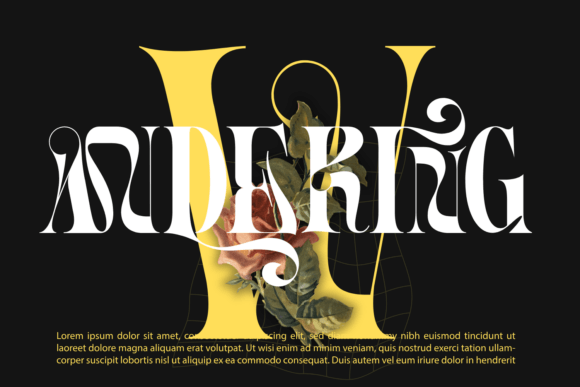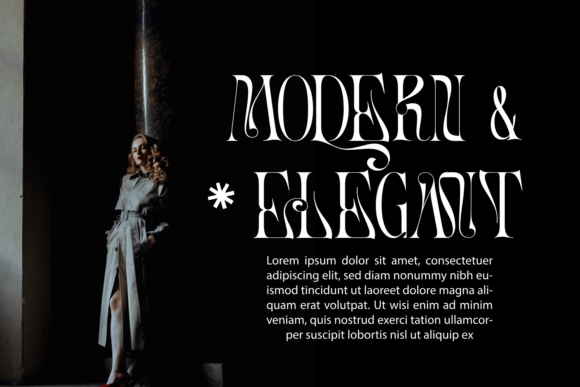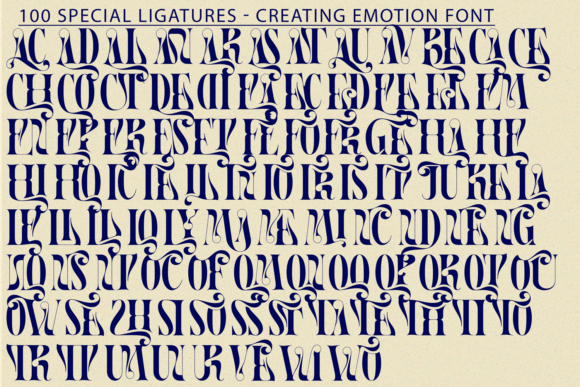
Introduction to Creating Emotion Font
Have you ever found yourself staring at a blank canvas, struggling to bring your creative vision to life? The spark of inspiration is there, but the right tool to match your artistic flair seems elusive. This is where the perfect design resource comes into play – a font that not only elevates your project but also speaks to the emotions you want to convey. Enter the Creating Emotion Font, a dramatic serif display font that exudes elegance and mystique, making it the perfect companion for any creative project.
With its bold regular version and extensive OpenType features, this font is designed to add a touch of sophistication to your designs. From high-quality typography to free downloads, the Creating Emotion Font offers a wealth of possibilities for designers looking to take their work to the next level. Whether you’re working on a project that requires a transparent background or a stylized text, this font has got you covered.
- Unique, hand-drawn design with a transparent background, ideal for creative projects that require a touch of personality.
- Comes in a single font style, perfect for designers who want to add a consistent emotional tone to their work.
- Designed to be highly legible, even at small sizes, ensuring that your message is conveyed clearly and effectively.
Honest Review: Creating Emotion Font
I recently came across the Creating Emotion Font, and I’m excited to share my honest review with you. This font has been a game-changer for my creative projects, and I think it’s worth exploring for any designer looking to elevate their work.
- High-quality design: The Creating Emotion Font has a unique and sophisticated design that’s perfect for creative projects.
- Transparent background: The transparent background makes it easy to layer the font over other design elements.
- Perfect for branding: The Creating Emotion Font is perfect for creating a consistent brand identity.
While I love the Creating Emotion Font, there are a few limitations to consider:
- Limited character set: The font only includes a limited character set, which may not be suitable for longer blocks of text.
- No bold or italic styles: The font only comes in a regular style, which may not provide enough flexibility for some designers.
Overall, I’m really impressed with the Creating Emotion Font. Its high-quality design, free download, and transparent background make it a great resource for designers. While there are some limitations, I think it’s worth exploring for any creative project.
Creating Emotion Font
Creating Emotion Font is a unique design resource that can add a touch of personality to your creative projects. This font is designed to evoke emotions and convey a message in a subtle yet effective way.
Tips for Getting the Most Out of Creating Emotion Font
To get the most out of Creating Emotion Font, be sure to:
- Use it on a transparent background to achieve a more subtle look.
- Experiment with different font sizes and colors to find the perfect combination.
- Combine Creating Emotion Font with other design elements to create a visually appealing design.
Creating Emotion Font is perfect for:
Creating Emotion Font: Unleashing Your Creativity
Emotional Quote Posters
Create a visually stunning poster that evokes emotions using Creating Emotion Font. This free download is perfect for designers who want to add a personal touch to their designs.
Social Media Graphics with Emotion
Create eye-catching social media graphics that evoke emotions using Creating Emotion Font. This design resource is perfect for designers who want to create engaging content for their audience.